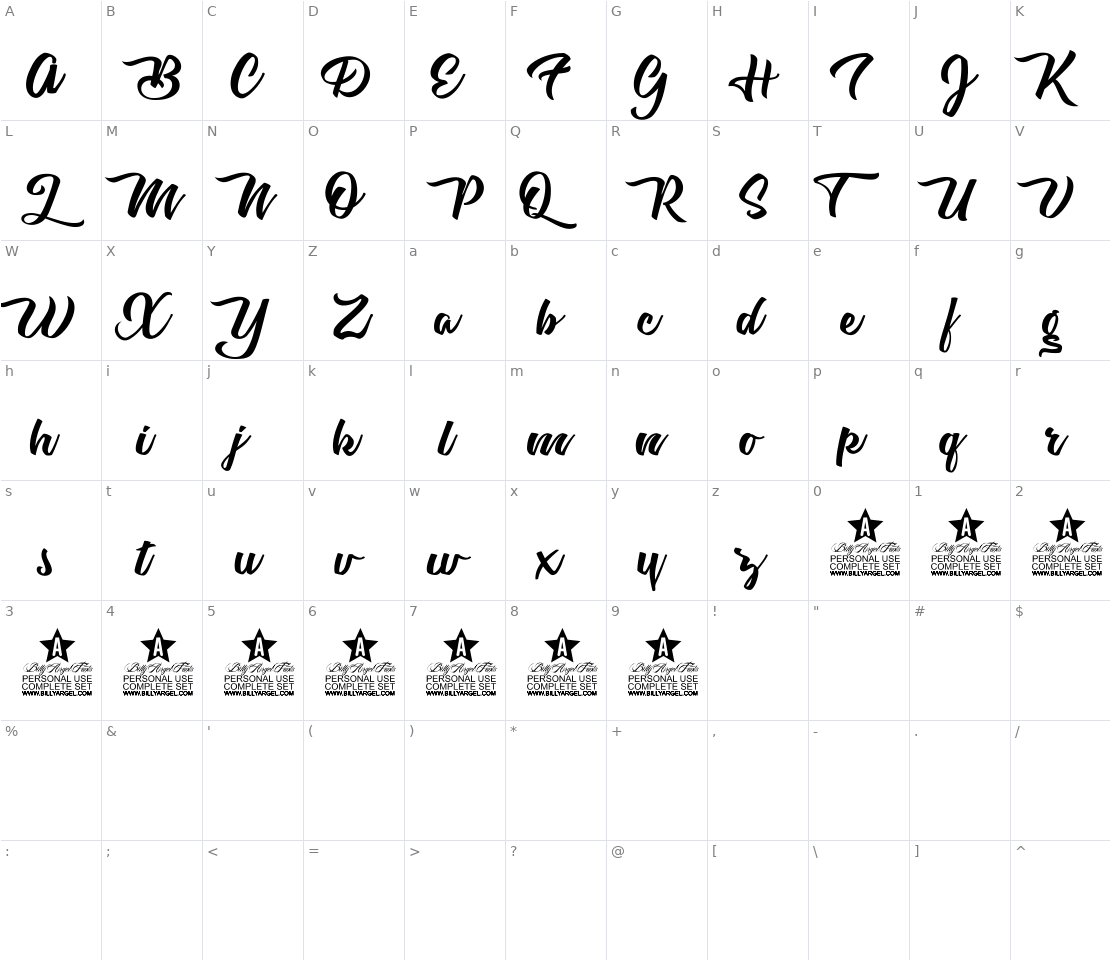
Cherry Blossom
Cherry Blossom is a bold brush script from Billy Argel with thick, flowing strokes that feel loose and expressive without losing control. The letterforms have a handwritten energy that stays modern and readable, with enough weight to anchor headlines, posters, and branding. It sits in that sweet spot between casual spontaneity and deliberate design, where the brushwork feels confident rather than sloppy.